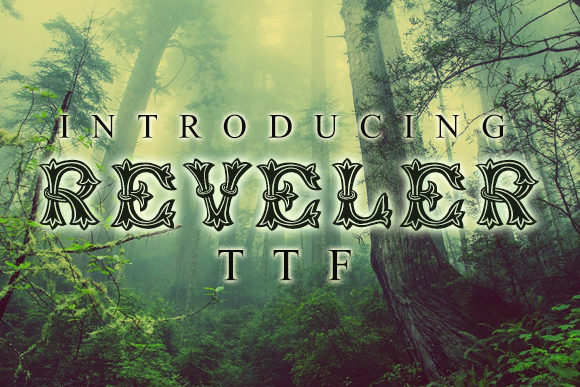
Welcome to the realm of Reveler Font, a decorative masterpiece inspired by the allure of the natural world. This font is not merely an artistic creation; it's a gateway to a bygone era, a time when aesthetics and functionality danced in perfect harmony. As you dive into the world of Reveler Font, prepare to be captivated by its intricate swirls, delicate flourishes, and a timeless charm that will leave you breathless. Let your imagination soar as you explore the endless possibilities that this font unlocks. Whether you're a seasoned designer or simply someone who appreciates the beauty of typography, Reveler Font is your ticket to a world of creative expression.
Unleash the Power of Retro Design:
Embrace the nostalgia of the past with Reveler Font, a tribute to the golden age of design. With its vintage charm and unmistakable retro aesthetic, this font will transport you to a time when simplicity and elegance reigned supreme. Picture your designs adorned with the graceful strokes of Reveler Font, evoking a sense of longing and familiarity. Whether you're creating posters, banners, or prints, this font will add an instant touch of sophistication and timeless appeal.
Capture the Beauty of Nature:
Reveler Font draws its inspiration from the untamed beauty of the natural world, capturing the essence of forests, meadows, and flowing streams. Each letterform is a testament to the intricate details found in nature, inviting you to explore the depths of your imagination. As you incorporate this font into your designs, you'll find yourself surrounded by a symphony of colors, textures, and shapes, all harmonizing to create a truly immersive experience.
Stand Out from the Crowd:
In a world saturated with cookie-cutter fonts, Reveler Font is a breath of fresh air, a beacon of originality that will make your designs shine. Its unique character and undeniable presence demand attention, ensuring that your creations leave a lasting impression on your audience. Whether you're crafting marketing materials, social media posts, or personal projects, this font will elevate your designs to new heights, setting them apart from the mundane and propelling them into the realm of the extraordinary.
A Creative Catalyst:
Reveler Font is more than just a collection of letters; it's a creative catalyst, a spark that ignites your imagination and sets your creative juices flowing. As you work with this font, you'll discover a newfound sense of freedom, a liberation from the constraints of ordinary typefaces. Experiment with different combinations, explore unexpected pairings, and let your creativity run wild. Reveler Font is your passport to a world of boundless possibilities, where the only limit is your imagination.